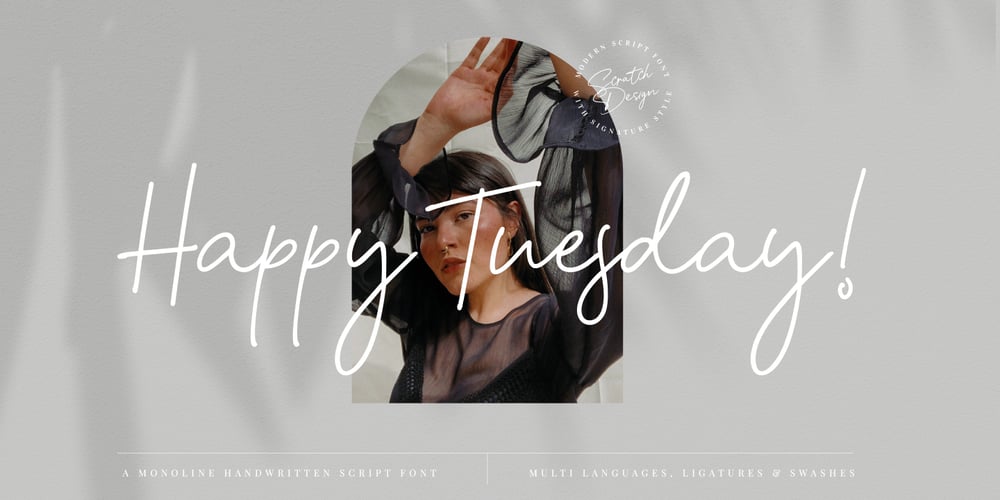
Happy Tuesday Font Family was designed by Gitayogi Irhandi and published by Scratch Design. Happy Tuesday contains 1 styles and family package options. Happy Tuesday it’s a monoline script font with a signature style look. It’s very recommended for you who want to make some designs with natural handwriting with signature style. Happy Tuesday is perfect for any occasion’s design such as name card design, invitation design, wedding design, poster, packaging, book cover title, quote, label, landing page, birthday card, logos, social media post, etc.Just open your Opentype features ( Minimum Compatible with Adobe Photoshop CS 6 and Adobe Illustrator CS 6 ) while using the script font to use the ligatures and swashes. As you type, your text will look like a natural signature or handwriting.So, enjoy the Happy Tuesday and the happiness side of this font and make some cool stuff!